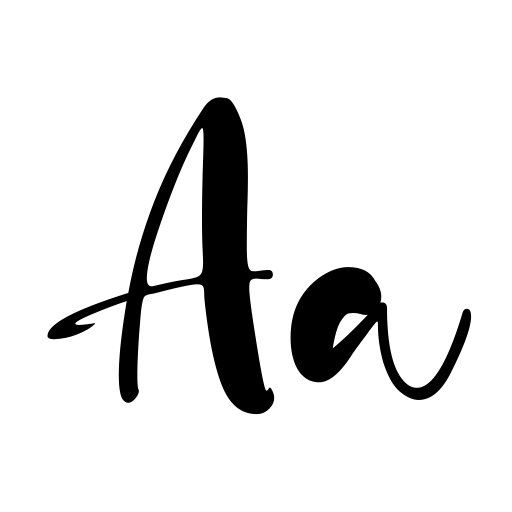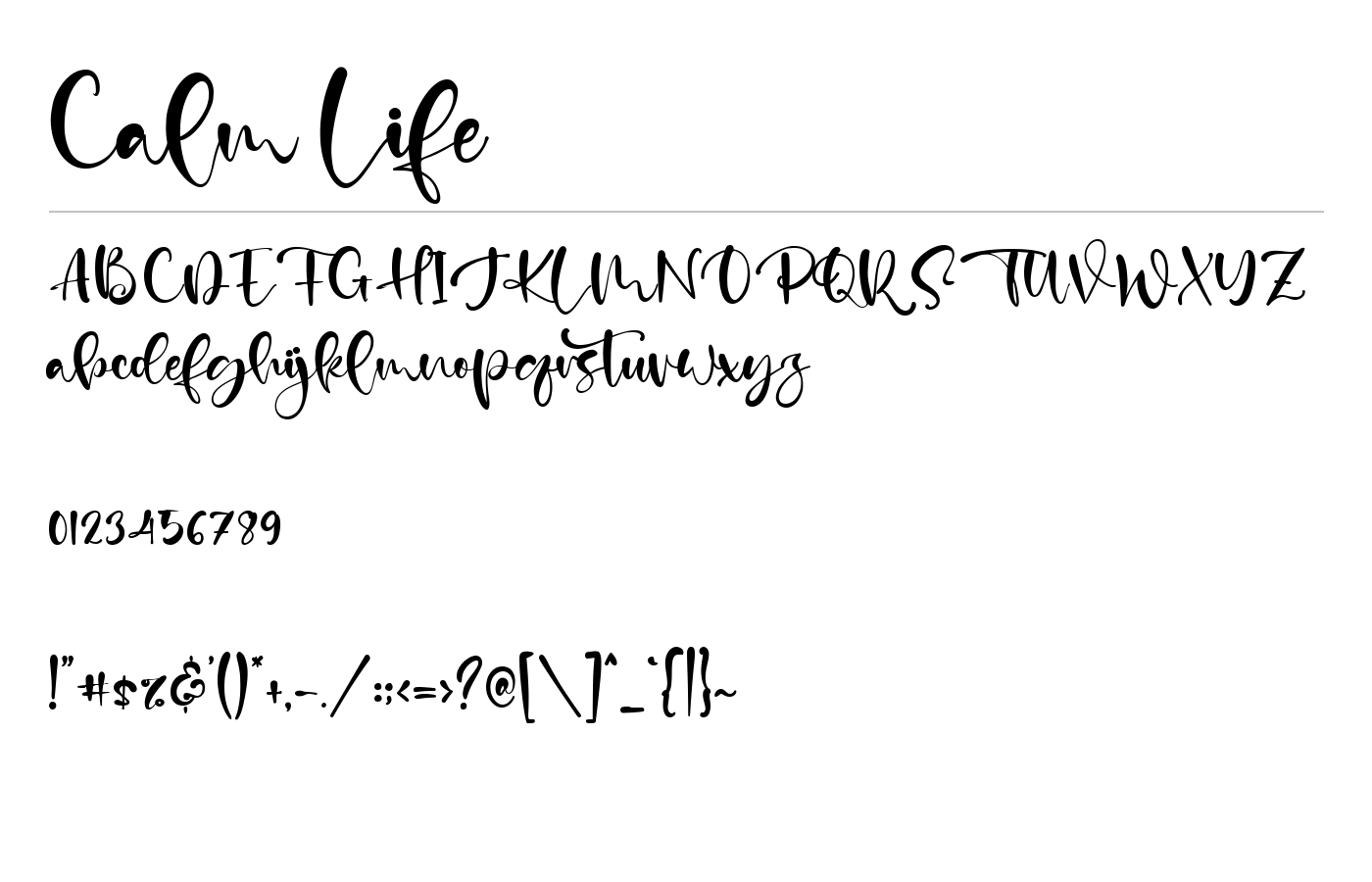
Calm Life is a playful and elegant script font with a hand-drawn feel, featuring smooth, flowing strokes and a lively, organic rhythm. Its moderate contrast and dynamic letterforms make it ideal for creative branding, invitations, or any design needing a personal, warm touch that feels both stylish and approachable.
Calm Life Font
About Calm Life Font
| Font family | Calm Life Font |